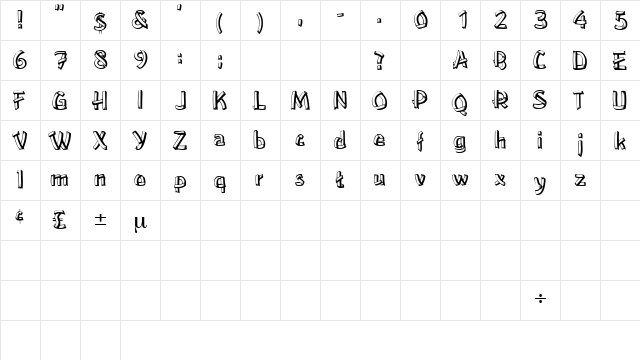
HomeboyDisplaySSK Regular
Design Context for HomeboyDisplaySSK Typeface
HomeboyDisplaySSK is built around its visual character rather than neutral utility — its distinctive forms are designed to make an impression at display sizes.
Font Pairing: Pair with a clean neutral sans-serif for body copy to let HomeboyDisplaySSK's character lead without overwhelming the composition.
Pro Tip: Treat HomeboyDisplaySSK as the centrepiece of your typographic hierarchy. One strong heading set in a decorative face can carry an entire layout.